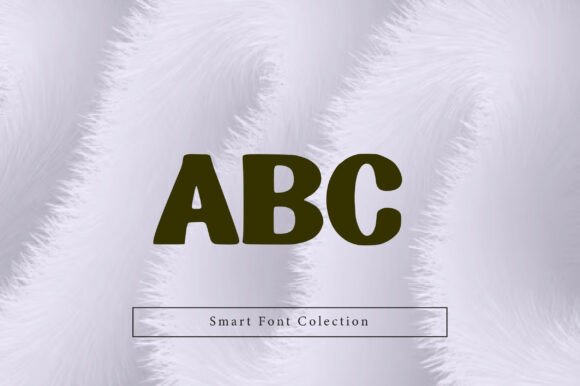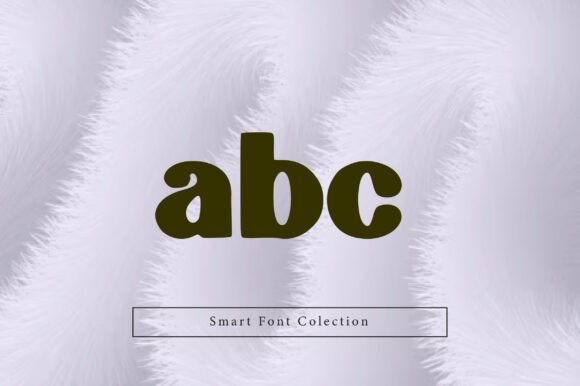
Introducing Bold Chunky: The Ultimate Display Font for Impactful Designs
In the world of typography, a bold and chunky font can make all the difference in grabbing attention and conveying a message with confidence. Meet Bold Chunky, a thick, playful, and highly impactful display font designed to dominate any design project. With its ultra-thick stems and minimal negative space, this typeface is a celebration of mass and volume, creating a powerful “blocky” aesthetic that’s sure to leave a lasting impression.
The Power of Bold Chunky
When your design needs to carry heavy weight and undeniable presence, the Bold Chunky font is the perfect solution. Its bold and chunky letters are substantial enough to act almost like a graphic element itself, allowing you to fill it with patterns, photos, or complex gradients. This versatility makes it an ideal choice for a wide range of design projects, from massive headlines and bold stickers to heavy-duty branding and sports apparel.
Design Applications
Bold Chunky is built for impact, making it perfect for designs that require a strong visual statement. Some of the design applications where Bold Chunky excels include:
- Sports Apparel: Add a bold and edgy touch to your sports apparel designs with Bold Chunky’s chunky and playful typography.
- Brutalist Web Design: Create a bold and modern look for your website with Bold Chunky’s powerful and blocky aesthetic.
- Urban Street-Style Graphics: Make a statement with Bold Chunky’s bold and eye-catching typography, perfect for urban street-style graphics and posters.
Typography Tips: Pairing Bold Chunky with Other Fonts
While Bold Chunky is a powerful font on its own, pairing it with other fonts can create a dynamic typographic tension that feels modern and professional. To balance the heavyweight of Bold Chunky, try pairing it with a very thin, clean sans-serif font for body text. This contrast between thick and thin creates a visually appealing combination that adds depth and interest to your design.
Getting Creative with Bold Chunky
One of the unique features of Bold Chunky is its ability to act as a graphic element itself. You can fill the letters with patterns, photos, or complex gradients to create a truly unique and eye-catching design. Here are some ideas to get you started:
- Pattern Fill: Fill the letters with a bold and colorful pattern to add texture and interest to your design.
- Photo Fill: Use a bold and striking image to fill the letters, creating a powerful and eye-catching design.
- Gradient Fill: Add a touch of sophistication to your design with a complex gradient fill that showcases the full range of colors.
In conclusion, Bold Chunky is a highly impactful display font that’s perfect for designers and crafters looking to add a bold and playful touch to their designs. With its ultra-thick stems, minimal negative space, and versatility, Bold Chunky is the ultimate solution for designs that require a strong visual statement. Whether you’re working on sports apparel, brutalist web design, or urban street-style graphics, Bold Chunky is the perfect choice for making a lasting impression.
Key Features of Bold Chunky
- Thick and Playful Typography: Ultra-thick stems and minimal negative space create a powerful and blocky aesthetic.
- Versatile Design: Perfect for massive headlines, bold stickers, heavy-duty branding, and more.
- Graphic Element: Acts as a graphic element itself, allowing for pattern, photo, or gradient fills.
- Pairing Options: Pairs well with thin, clean sans-serif fonts for body text.